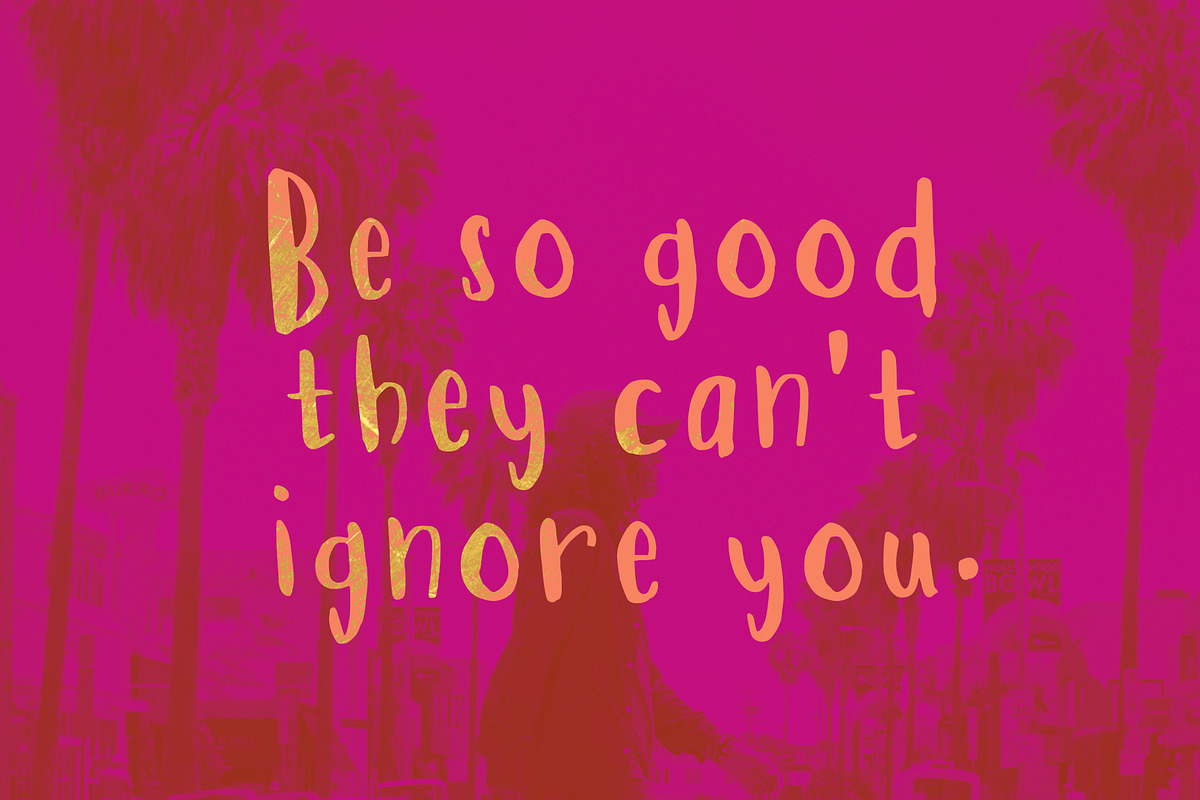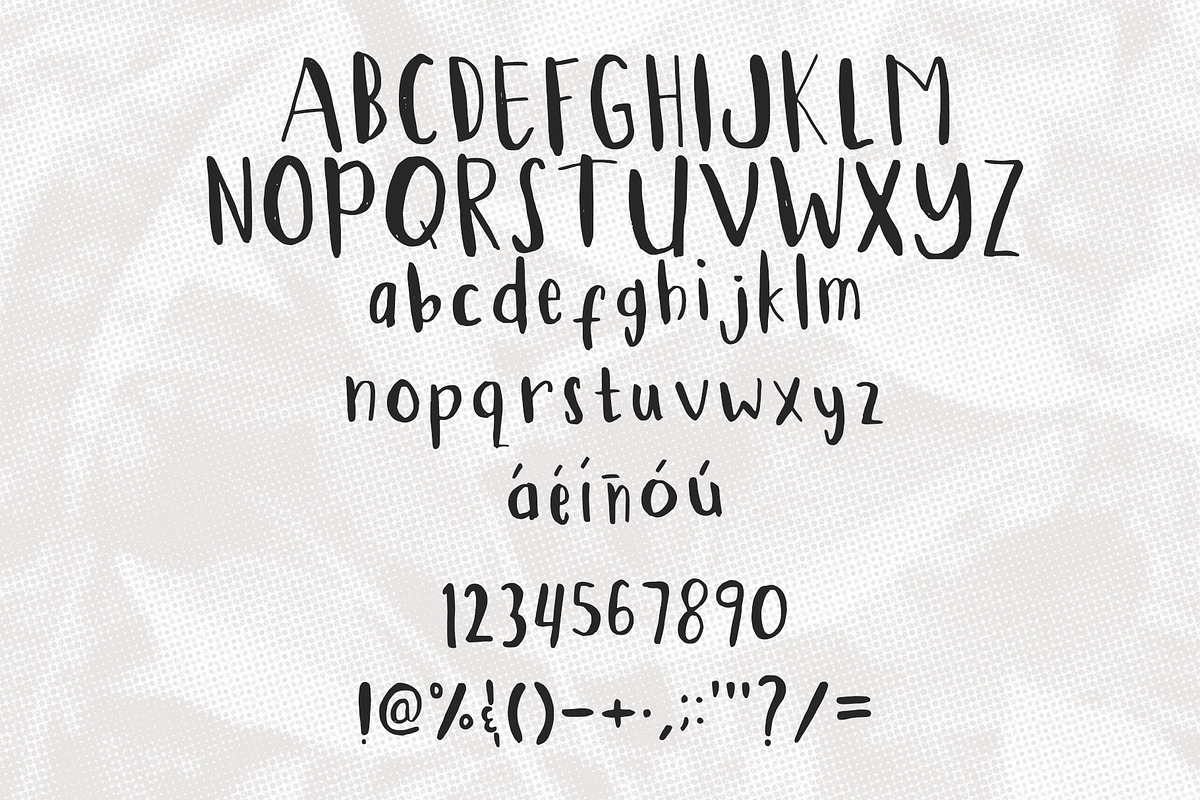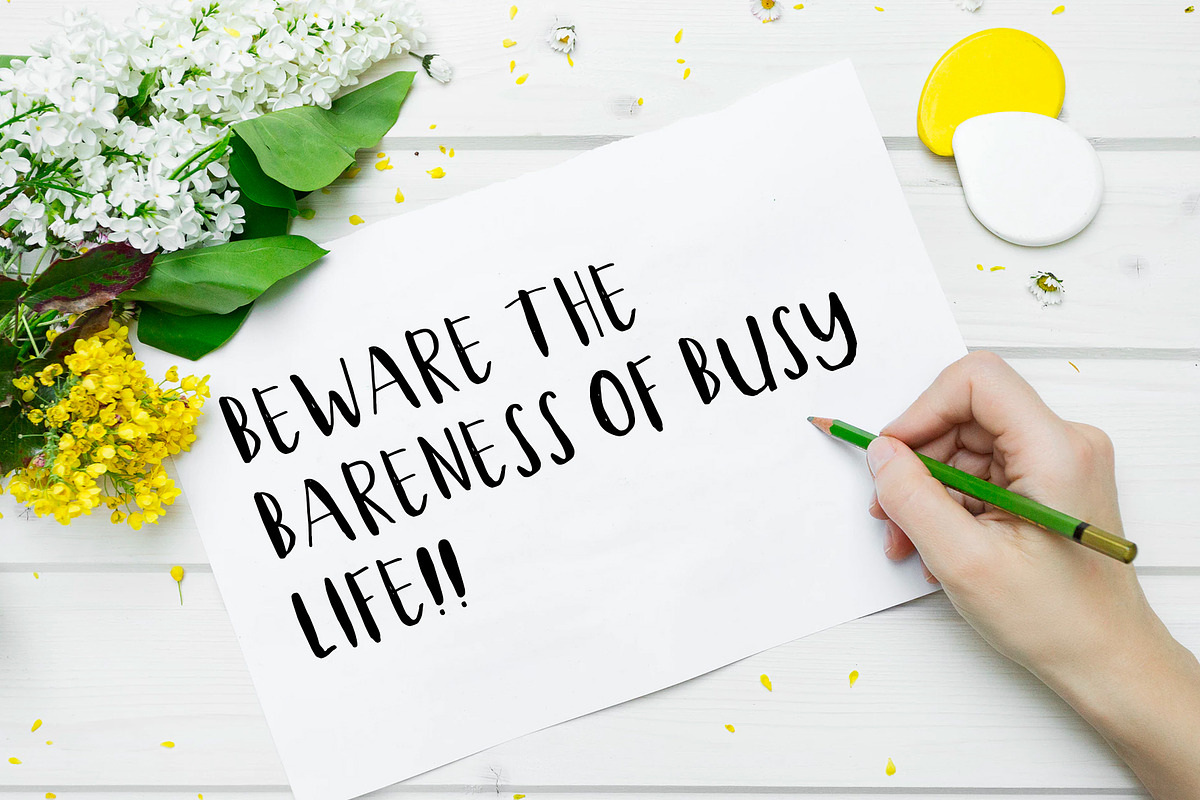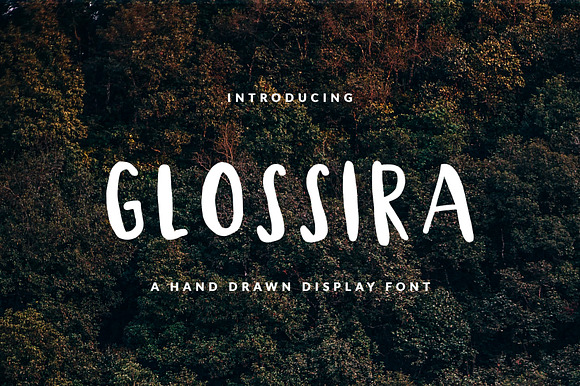
Glossira Font for Header & Text
Sans serif hand-drawn display font called GLOSSIRA was designed for modern, classic, feminine, unique and other style also fit for Header website, general use for header text, kids stories, books, poems and other long text
Glossira Font for Header & Text by NadaNora fits naturally into Branding, posters, packaging, typography.